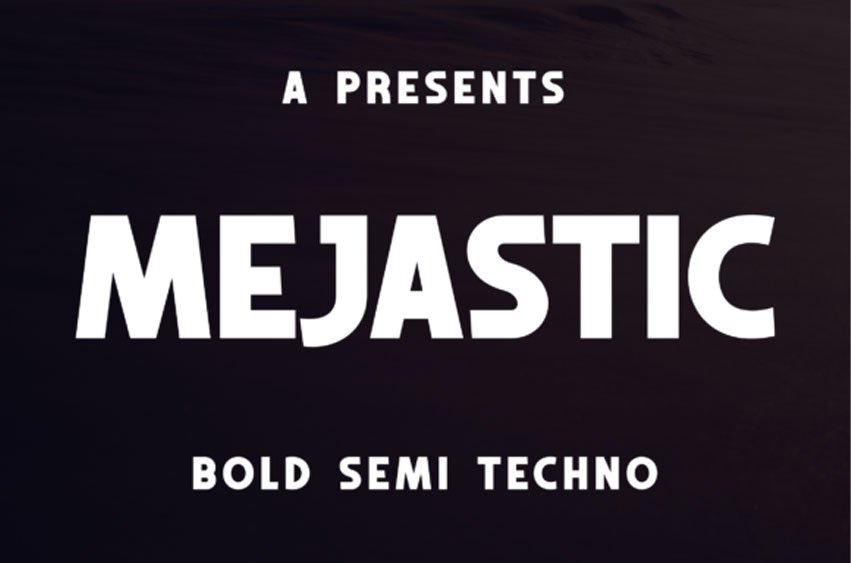
Mejastic Font is a monumental serif font imparting a dignified aura with its exquisite intricacies and noble presence. The towering, stylish letterforms coupled with its flowing curves make Mejastic the definitive choice for grandeur branding, upscale editorial design, premium invitations, and illustrious logos.
For creations that require the articulation of elegance, prestige, and authority, Mejastic’s timeless sophistication fits perfectly. With Mejastic, provide an aristocratic touch to your typography, empowering your design to make a statement of style and refinement.
Mejastic Font Preview